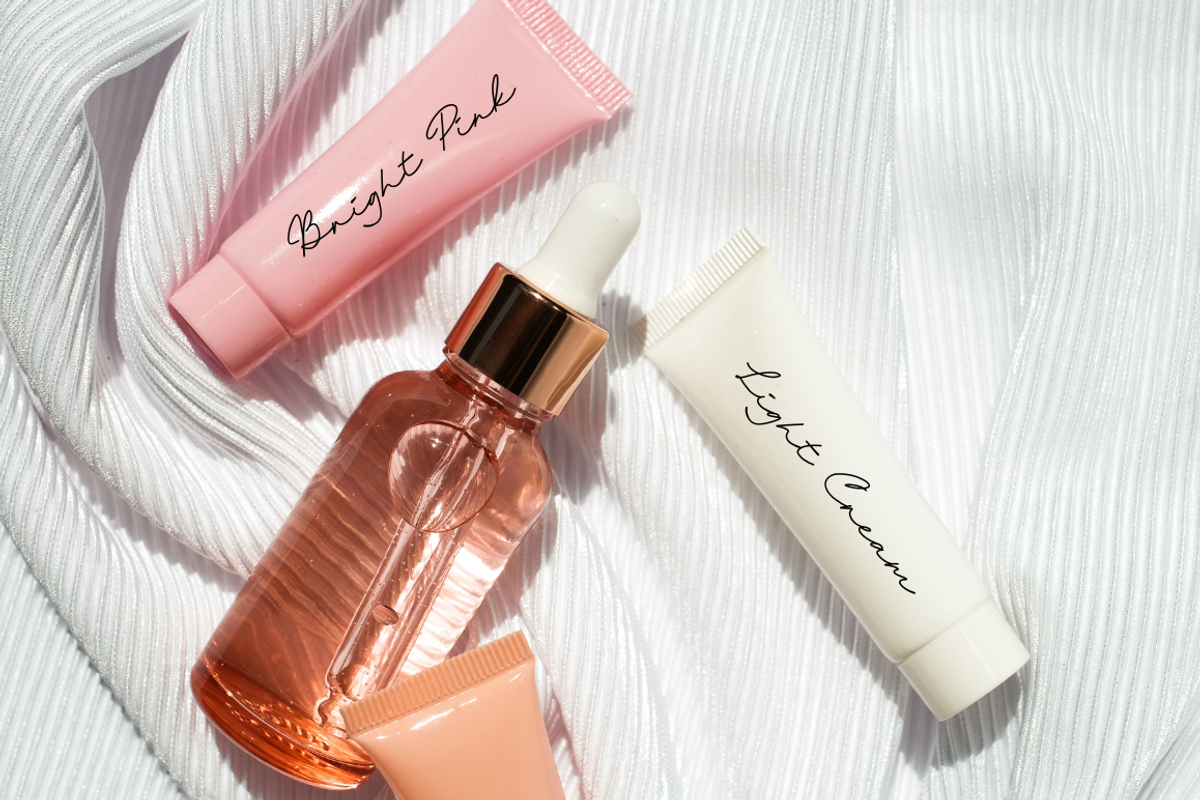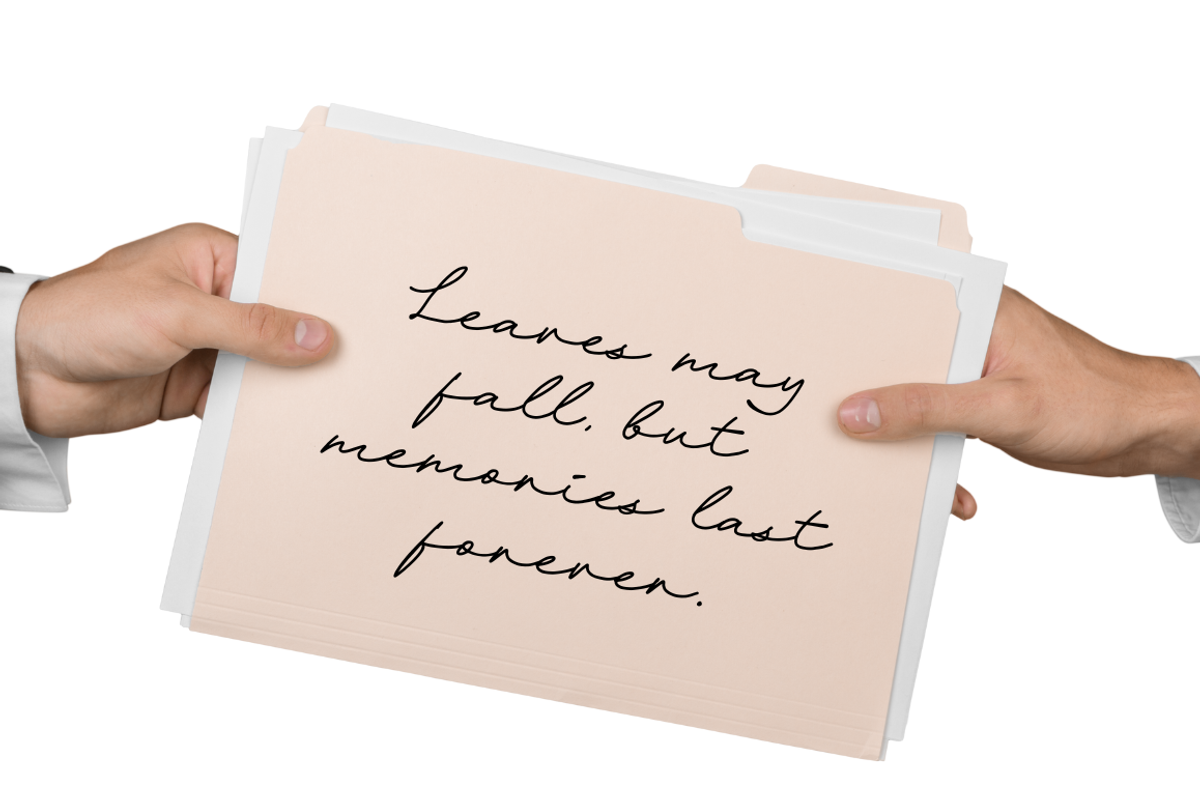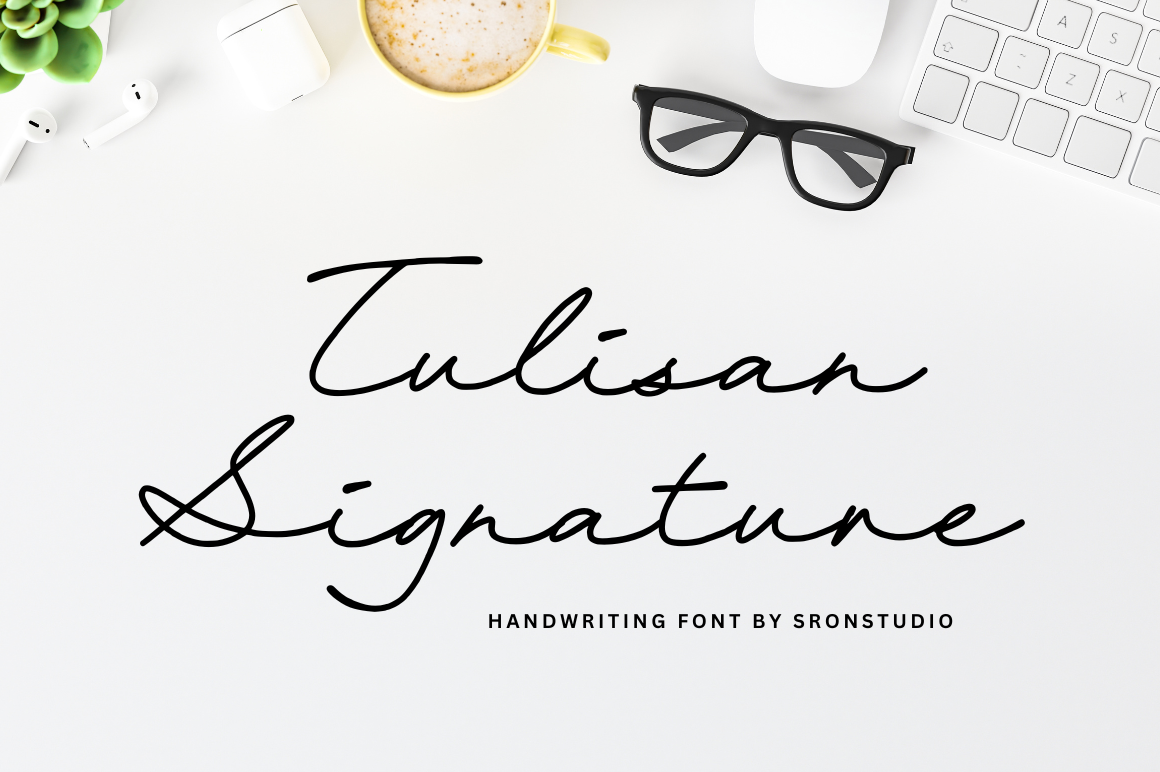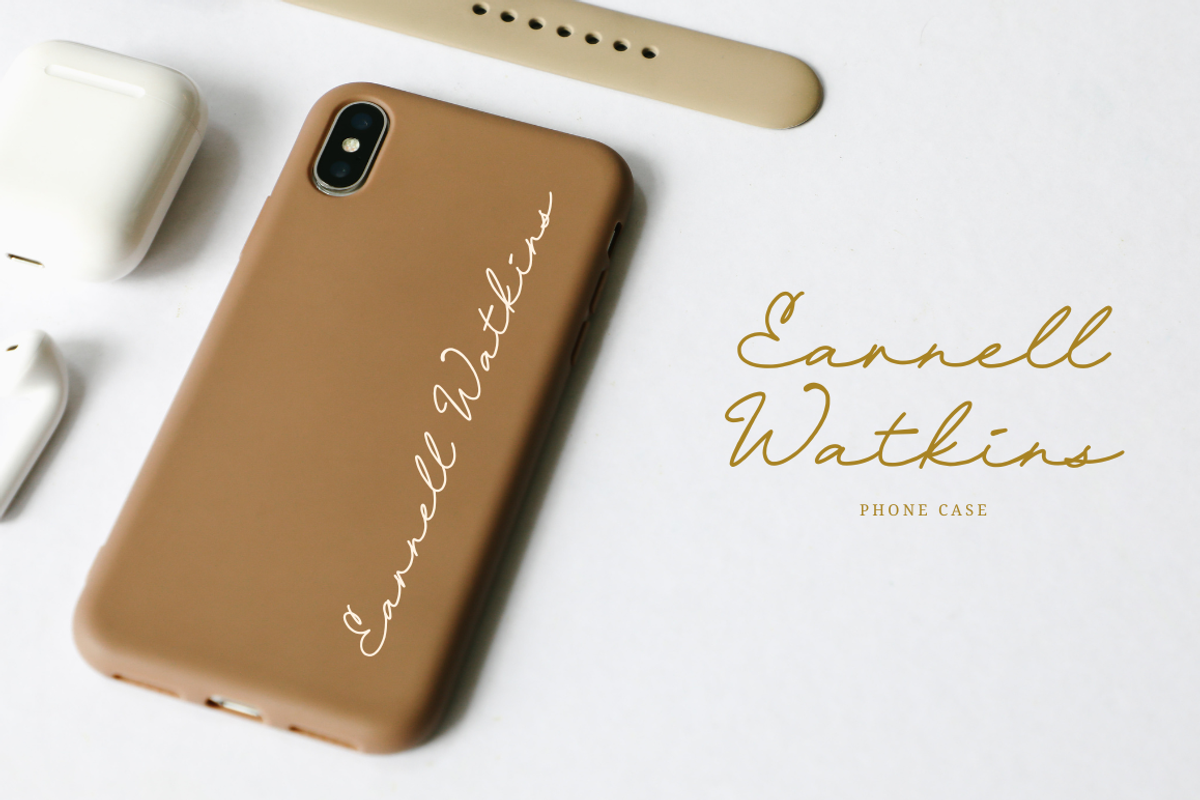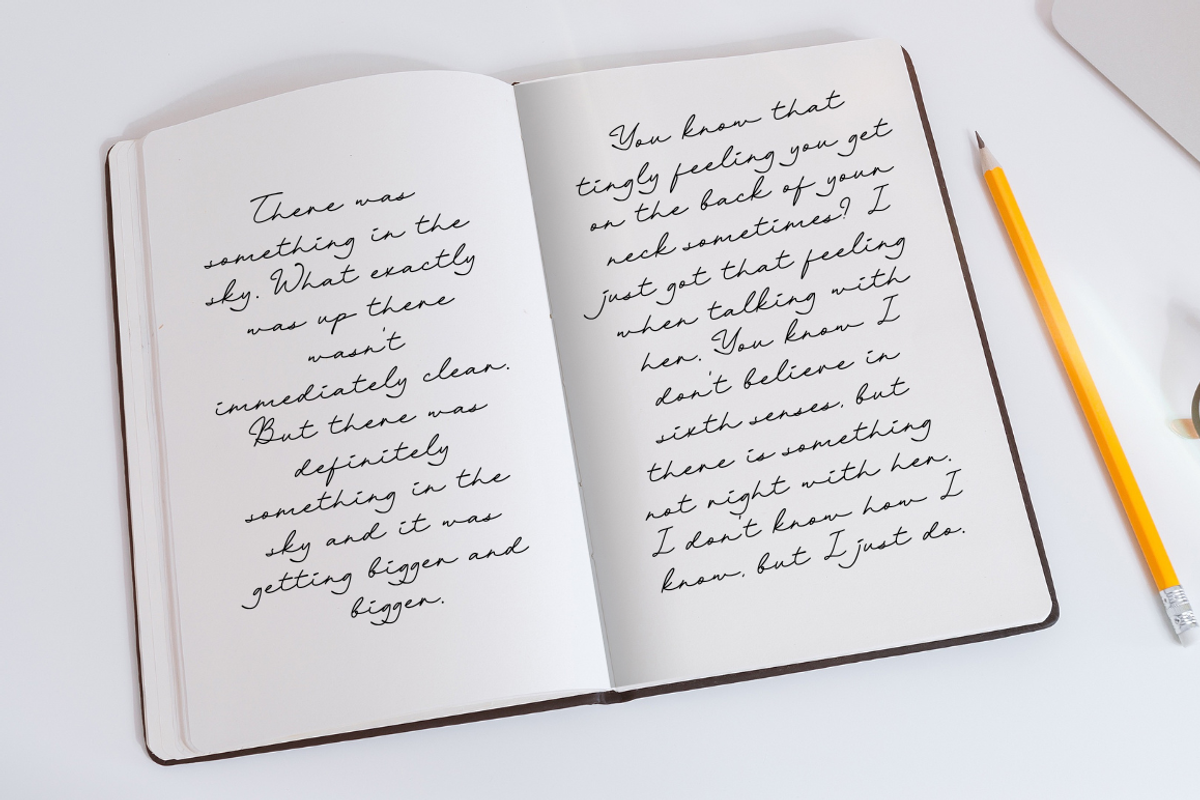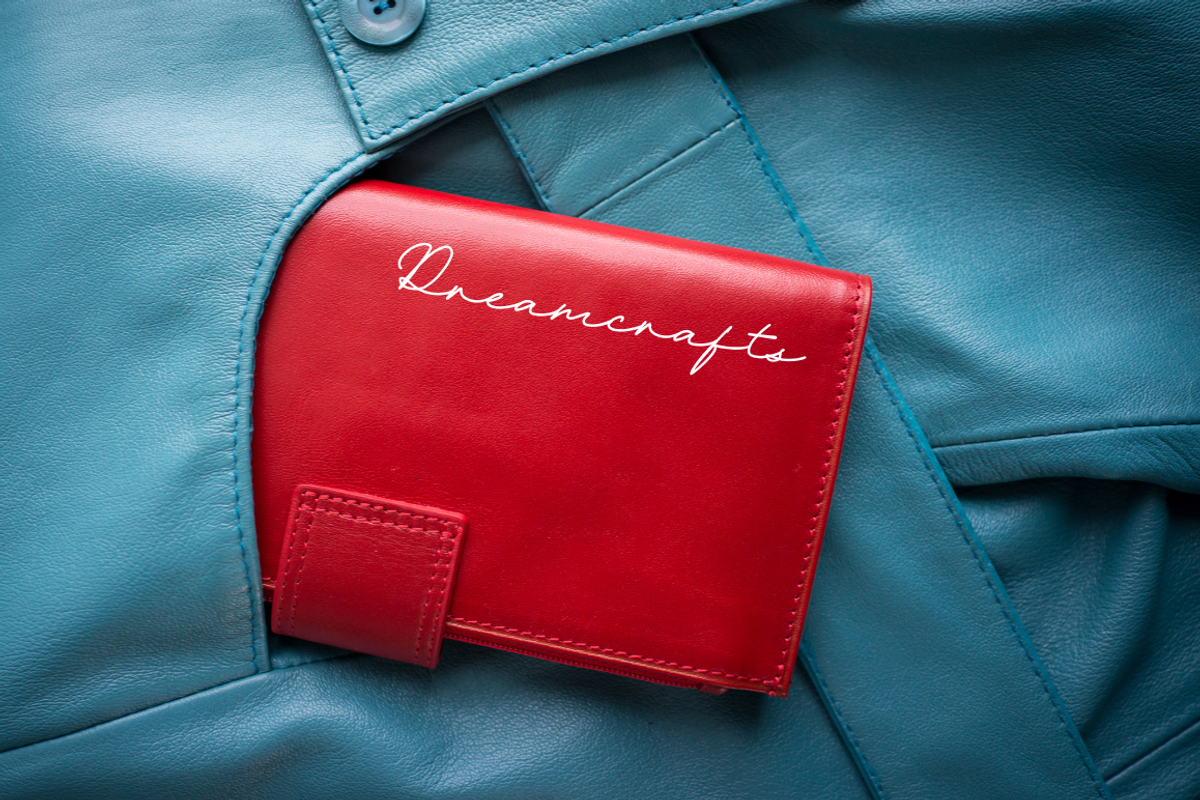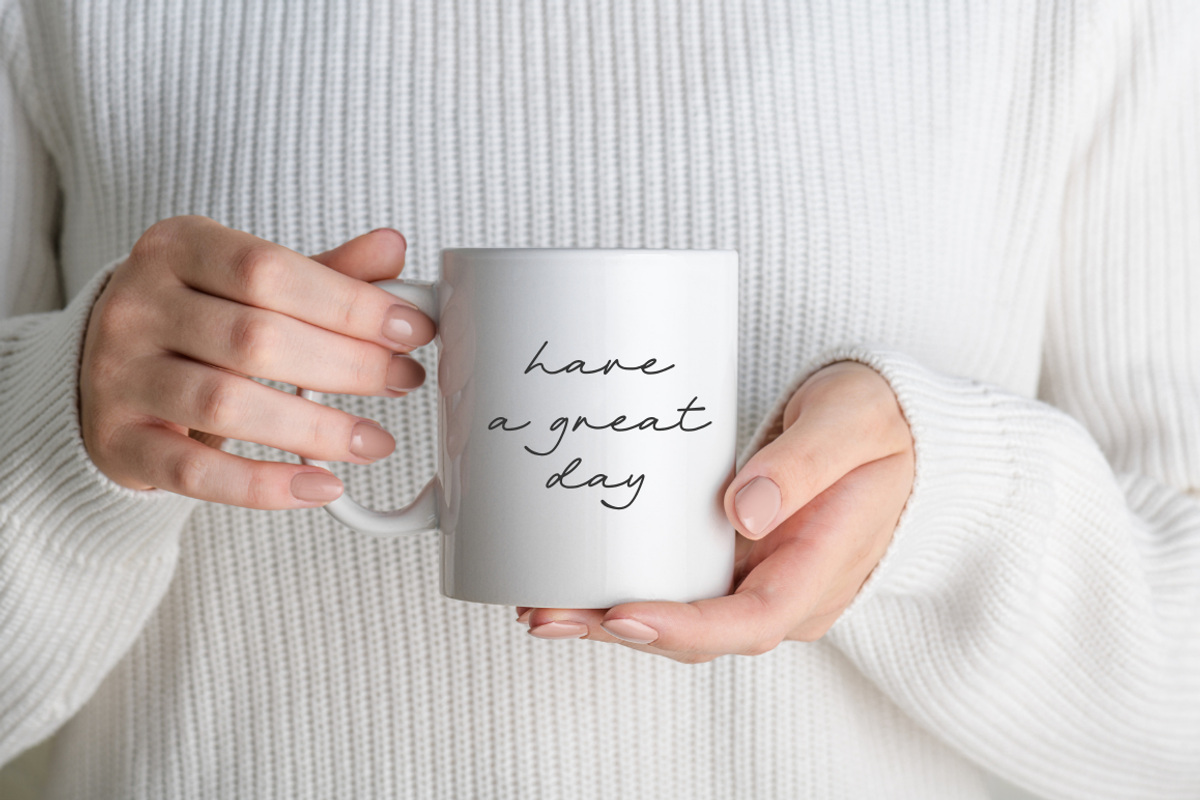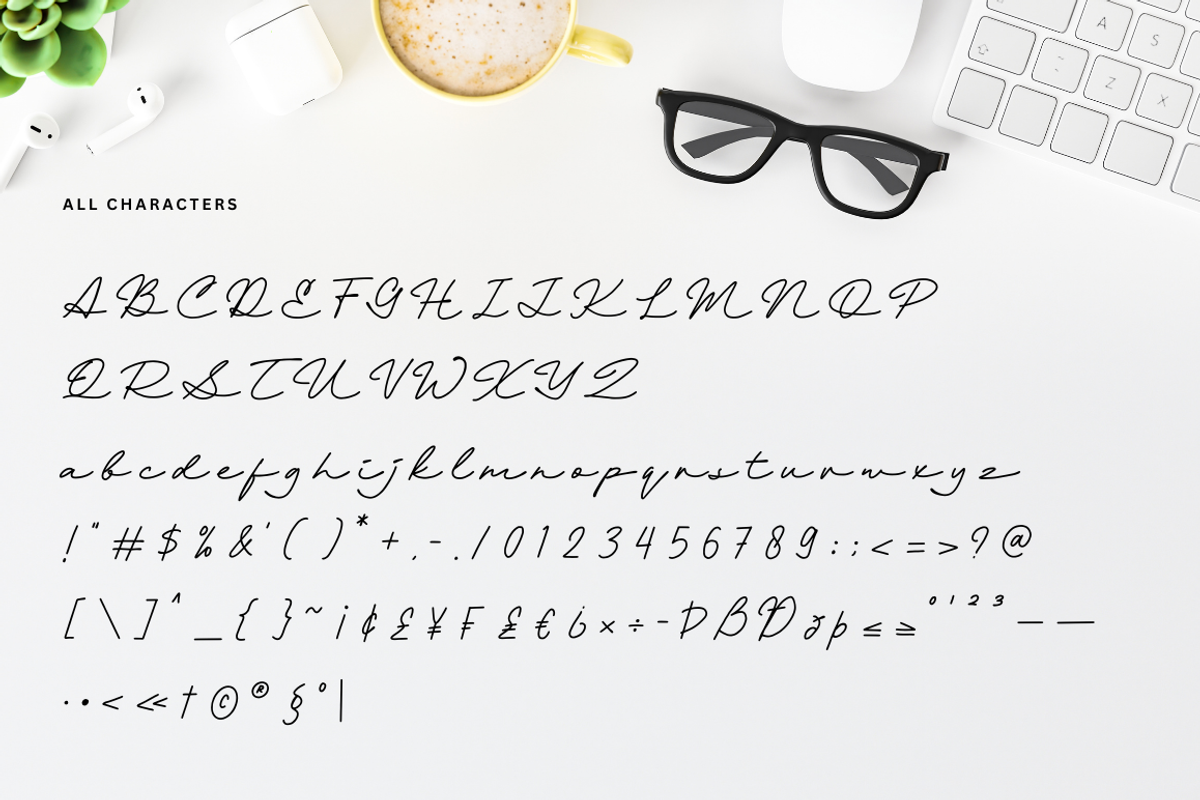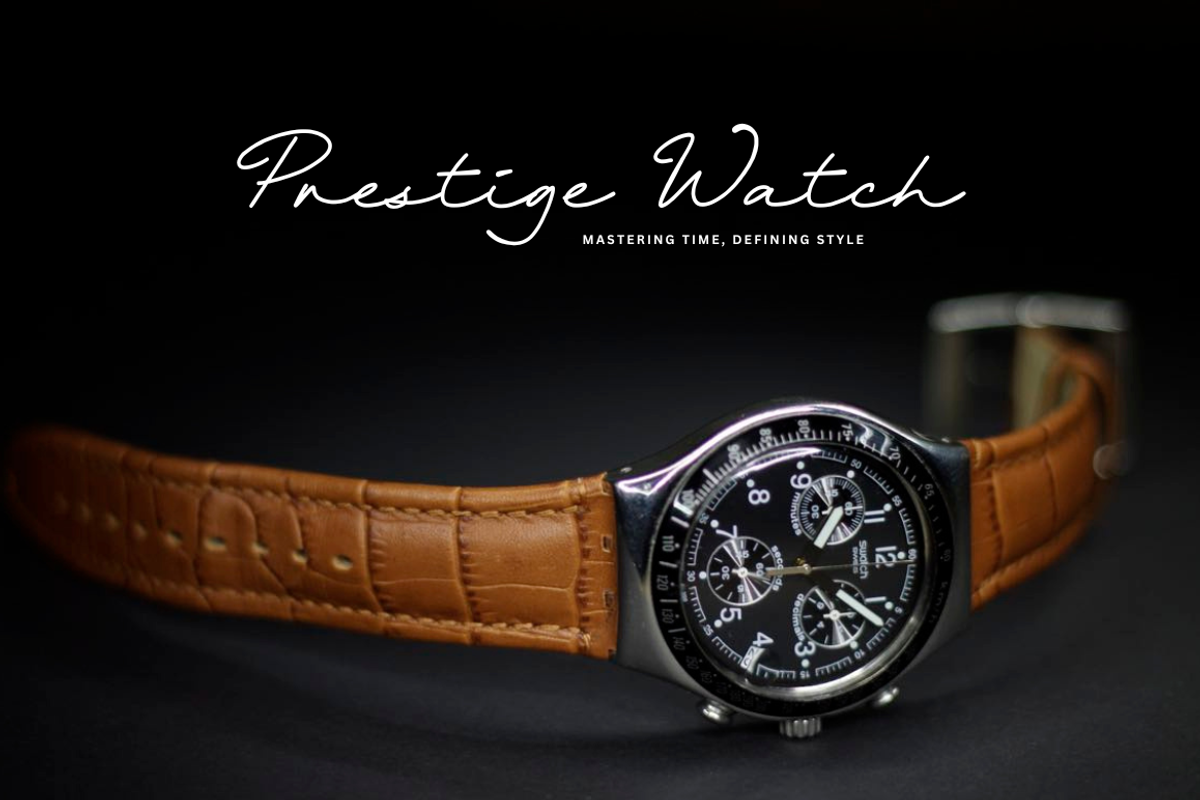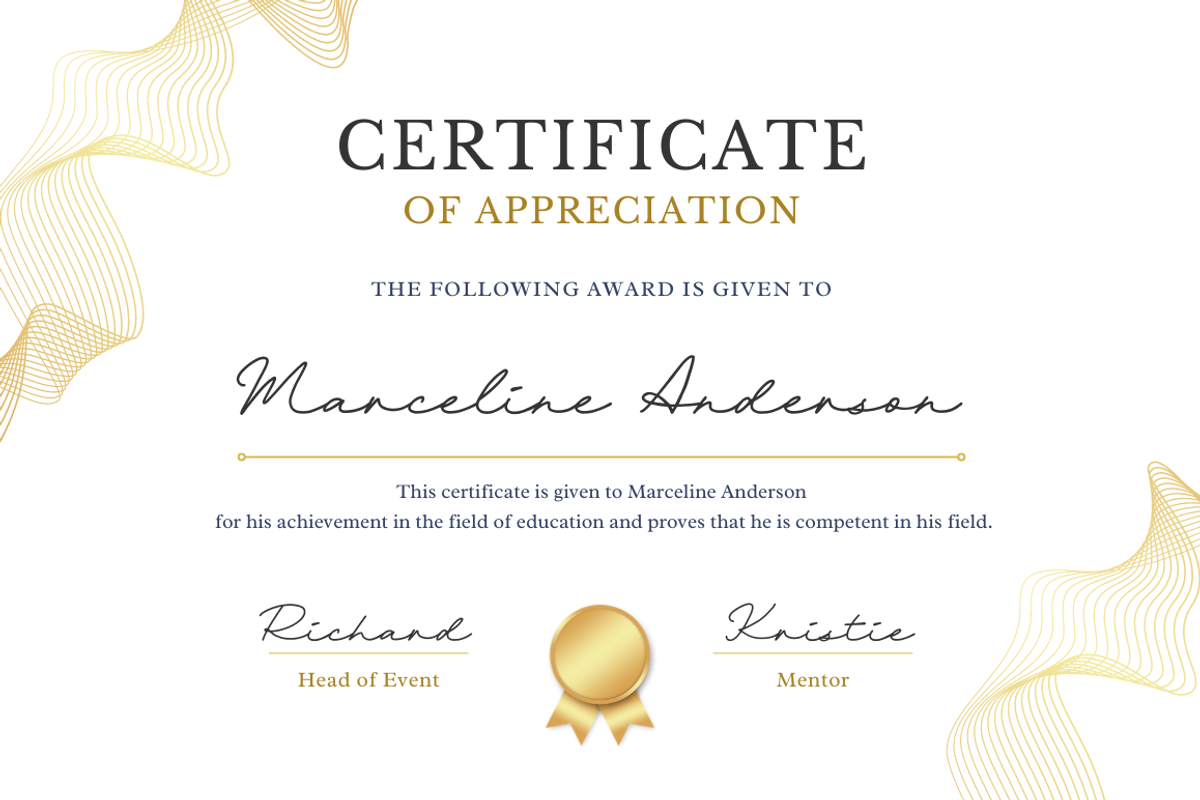
Tulisan Signature Font
Tulisan Signature is a beautifully crafted signature font that brings an elegant, handwritten feel to your projects. With its smooth curves and stylish strokes, this font is perfect for personal branding, logos, invitations, and anything that needs a touch of sophistication. Tulisan Signature adds a classy and authentic handwritten look to your designs, making it ideal for creating timeless, graceful aesthetics.